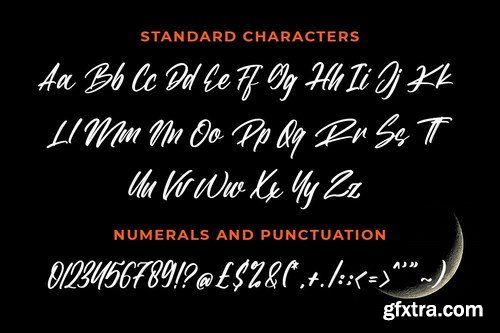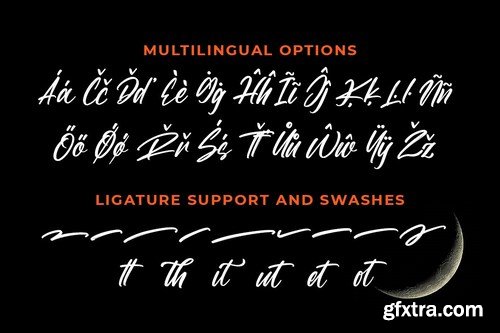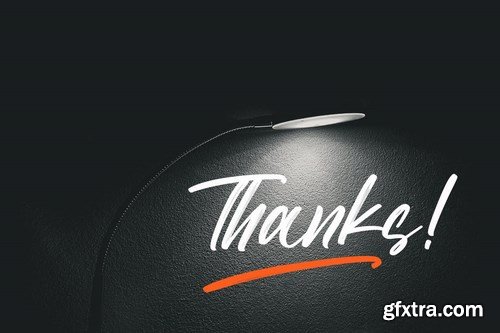
Blastter is a new modern brush font, incredibly adaptable to all sorts of designs. It is suitable for any branding, product packaging, invitation, quote, t-shirt, label, poster, logo that you wish to create.